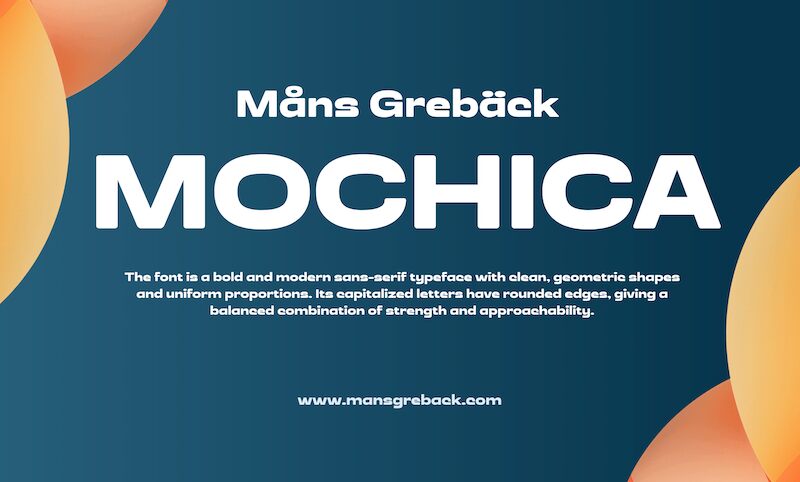
Mochica font by Mans Greback is a modern sans serif font inspired by uniform geometric shapes. The font is in an expanded style yet maintains an elegant appeal thanks to the even look of the letters. The modern letterforms follow rounded designs that made Mochica approachable and easy to read.
The free display font has retro influence for which it can be used in poster designs, headings, titles, packaging, logos, and all sorts of advertisements. Use this professional typeface for apparel brands related to surf and skateboarding or futuristic electronic devices.